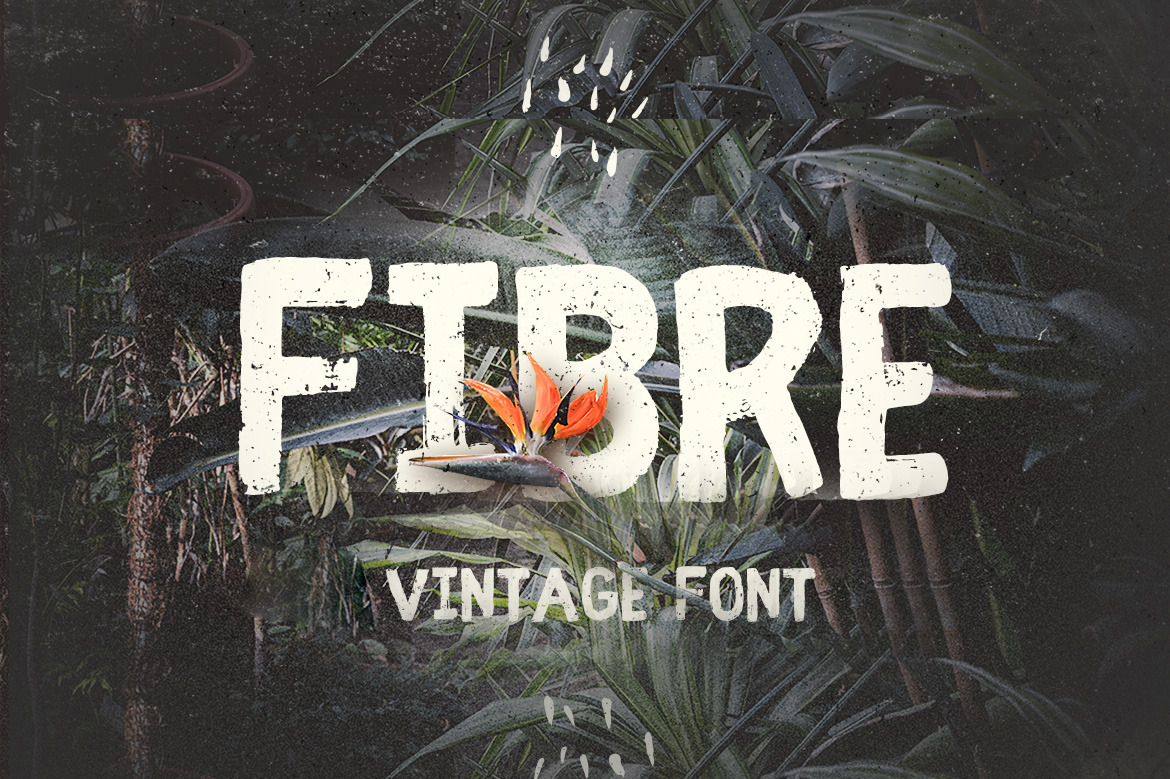
Fibre - Vintage Font
Fibre is a handwritten Vintage feel font, all the basic characters are unique and not one has the same noise. The kerning and font metricks are designed to suit the best reading experience a all caps font can have.